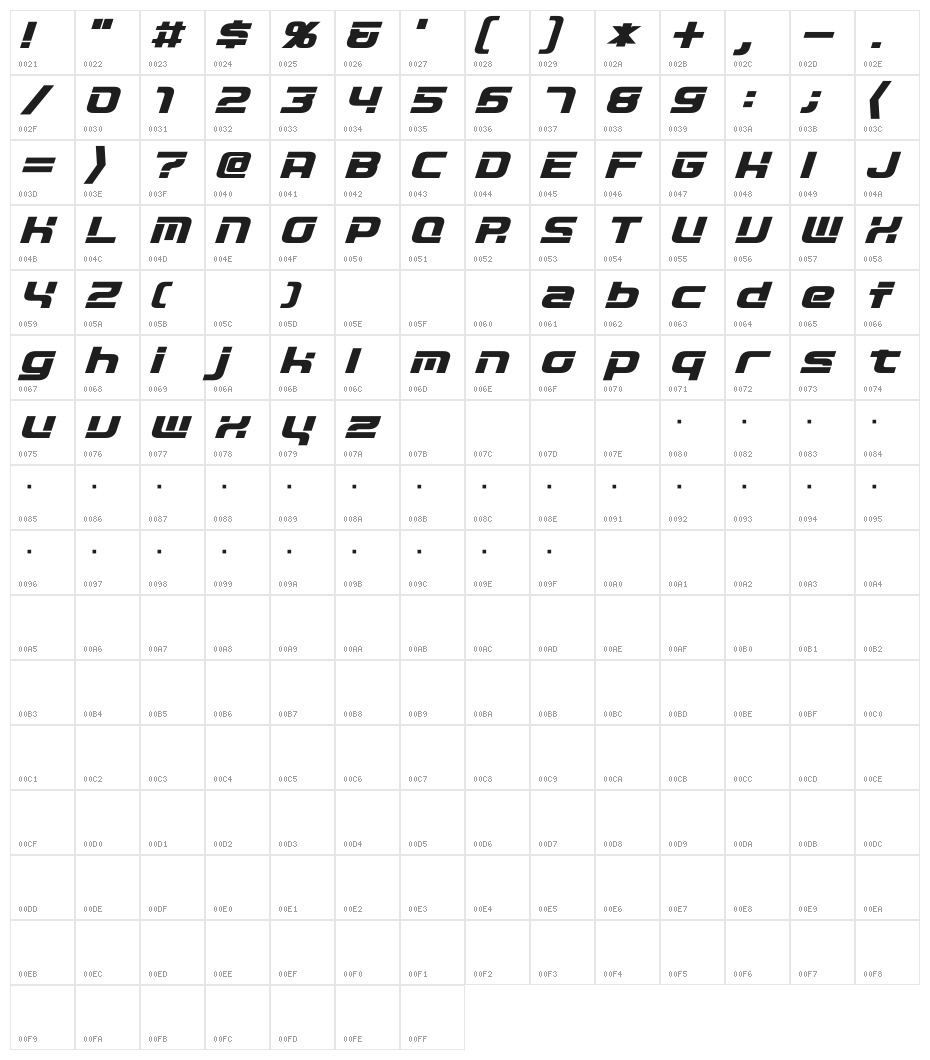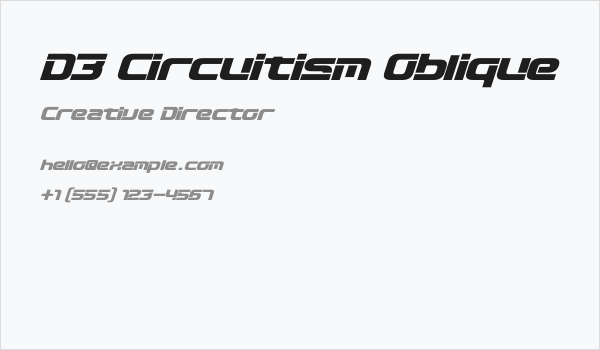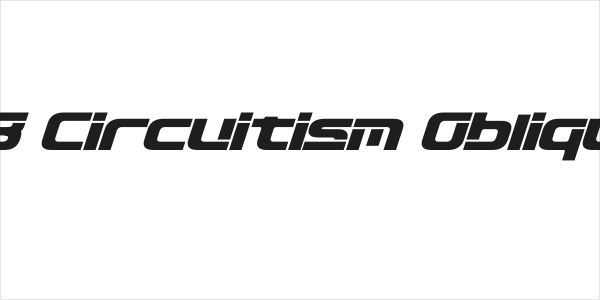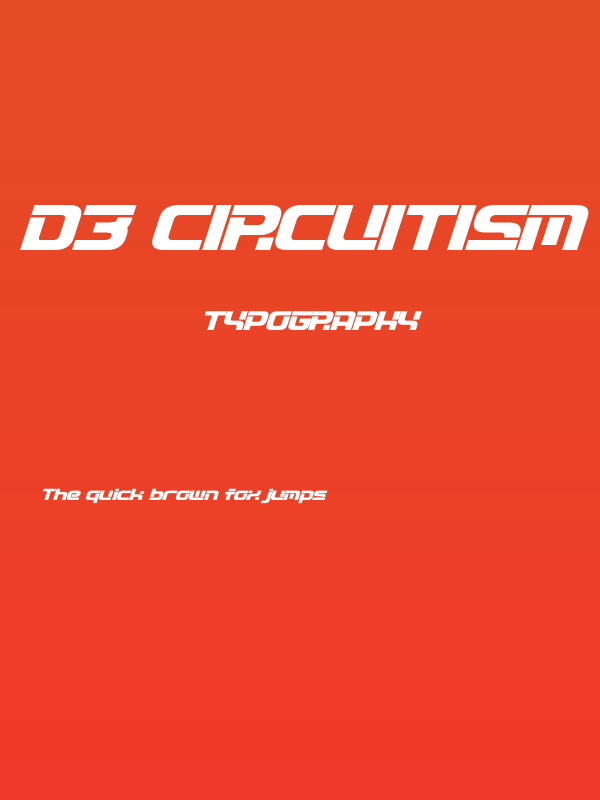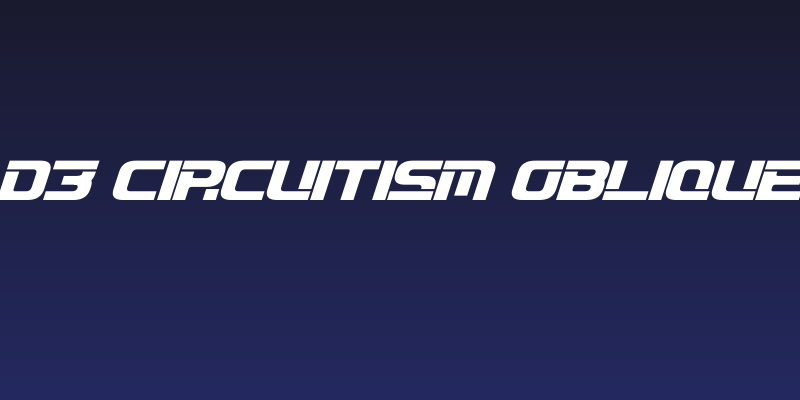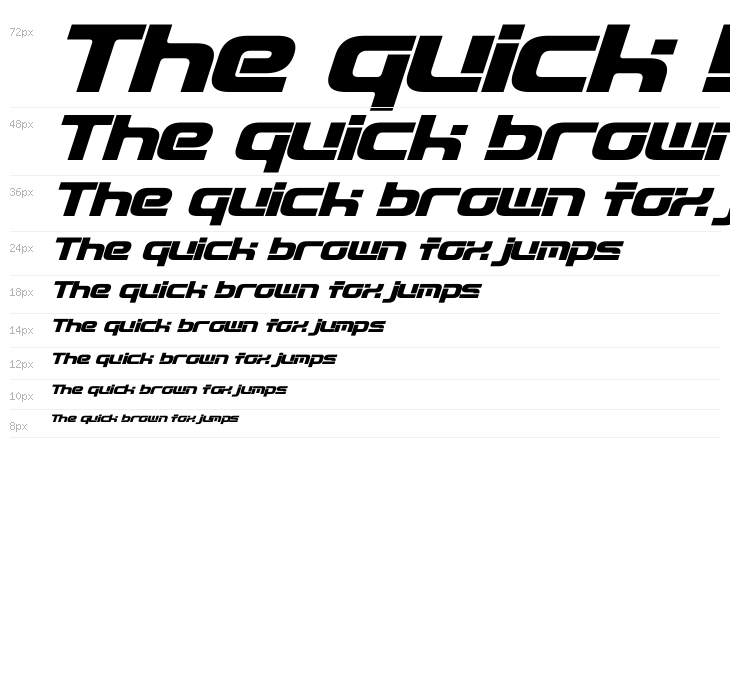
D3 Circuitism Oblique Font
D3 Circuitism Oblique Description
This font features a futuristic and dynamic design, characterized by its bold and angular letterforms. The characters are slightly slanted, giving an oblique appearance that enhances the sense of motion and speed. The strokes are thick and consistent, with sharp edges and geometric shapes that convey a modern and technological aesthetic. The uppercase and lowercase letters maintain a uniform style, while the numerals and special characters integrate seamlessly with the overall design. This font is ideal for projects that require a cutting-edge and innovative look.
| Proposed Projects | Ideal for tech branding, video game titles, sci-fi movie posters, and digital interfaces. |